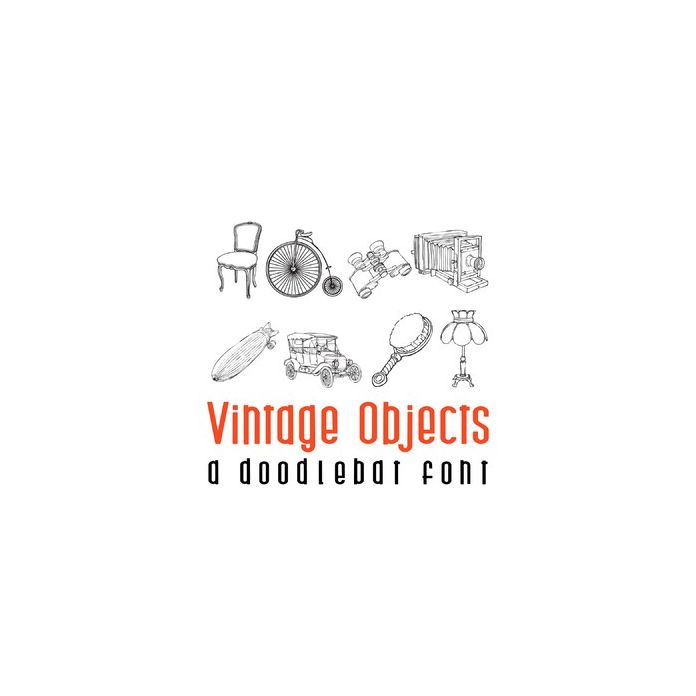
vintage objects doodlebat font
This fun doodlebat font features 26 vintage iconic images. Perfect for cards, gifts, decor, crafts, scrap book pages, planner stickers and more!